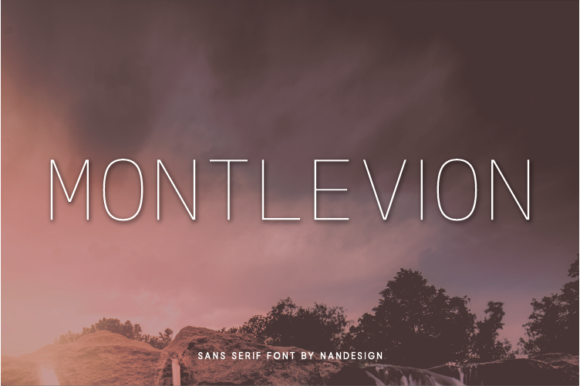
Introducing Montlevion Font - An Exuberant Expression for Your Design Aspirations
Prepare to be captivated by the graceful strokes of Montlevion Font, a masterpiece from the skilled hands of Nan Design. This exquisite sans serif font exudes a timeless elegance that will elevate your creations to new heights. Whether you're crafting a captivating logo, designing an unforgettable wedding invitation, or simply seeking to inject a touch of sophistication into your latest project, Montlevion Font is your steadfast companion.
Its ethereal lines and delicate curves will add an undeniable charm to your designs, evoking a sense of effortless beauty and timeless appeal. With Montlevion Font, your words will dance across the page, leaving a lasting impression on your audience.
As a versatile chameleon in the world of typography, Montlevion Font seamlessly adapts to a kaleidoscope of design styles, from the classic to the contemporary. Its inherent versatility empowers you to effortlessly create designs that resonate with your unique vision and artistic flair.
Indulge in the boundless possibilities that await with Montlevion Font. Unleash your creativity and let this remarkable font guide you towards design brilliance. Embrace the allure of Montlevion Font today and witness the transformation of your creations into works of art.